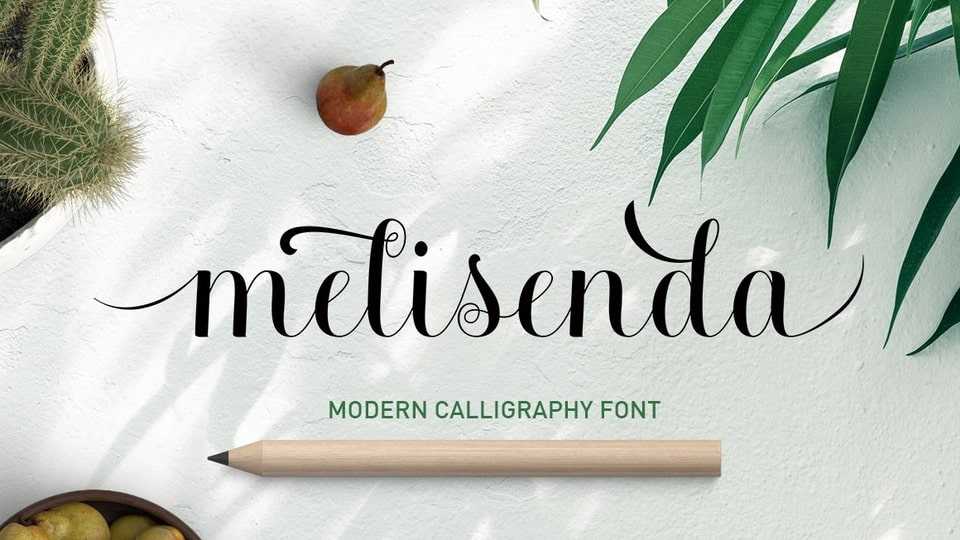
Download Melisenda Script font, a playful, yet elegant handwritten typeface with an undeniable charm. Use it for any design project that needs a light and authentic touch.